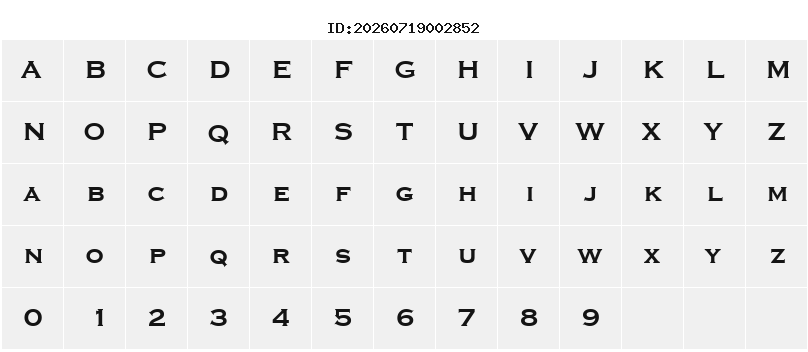
• Font Name: CopprplGoth Bd BT
• Font ID: Copperplate Gothic Bold, Copperplate 001
• Full Font Name: Copperplate Gothic Bold BT
• Version: mfgpctt-v1.52 Monday, January 25, 1993 3:20:21 pm (EST)
• PostScript Name: CopperplateGothicBT-Bold
About CopprplGoth Bd BT.ttf
CopprplGoth Bd BT.ttf is a modern, elegant sans-serif font designed for ultimate readability and visual harmony. Perfect for branding, headlines, web design, and print materials.